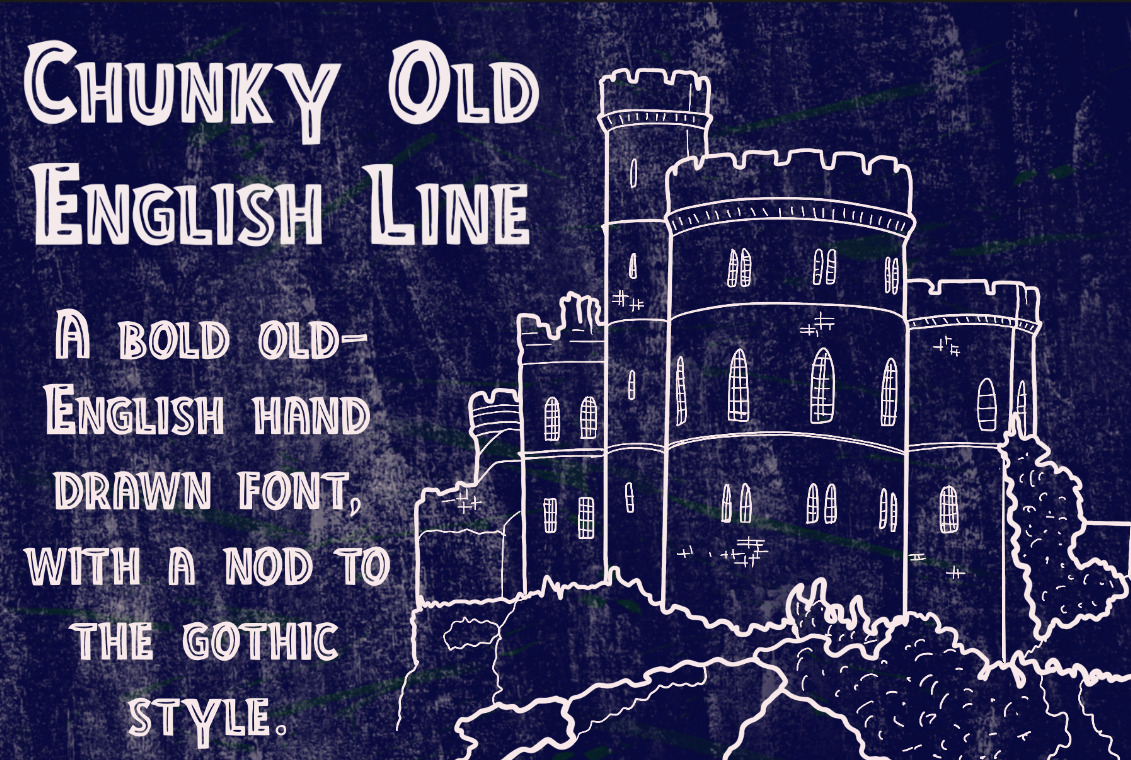
Chunky old English line font
A hand drawn old English font. This chunky and masculine font has a bit of the Antique, vintage, a bit of the gothic… Great for any artistic project.